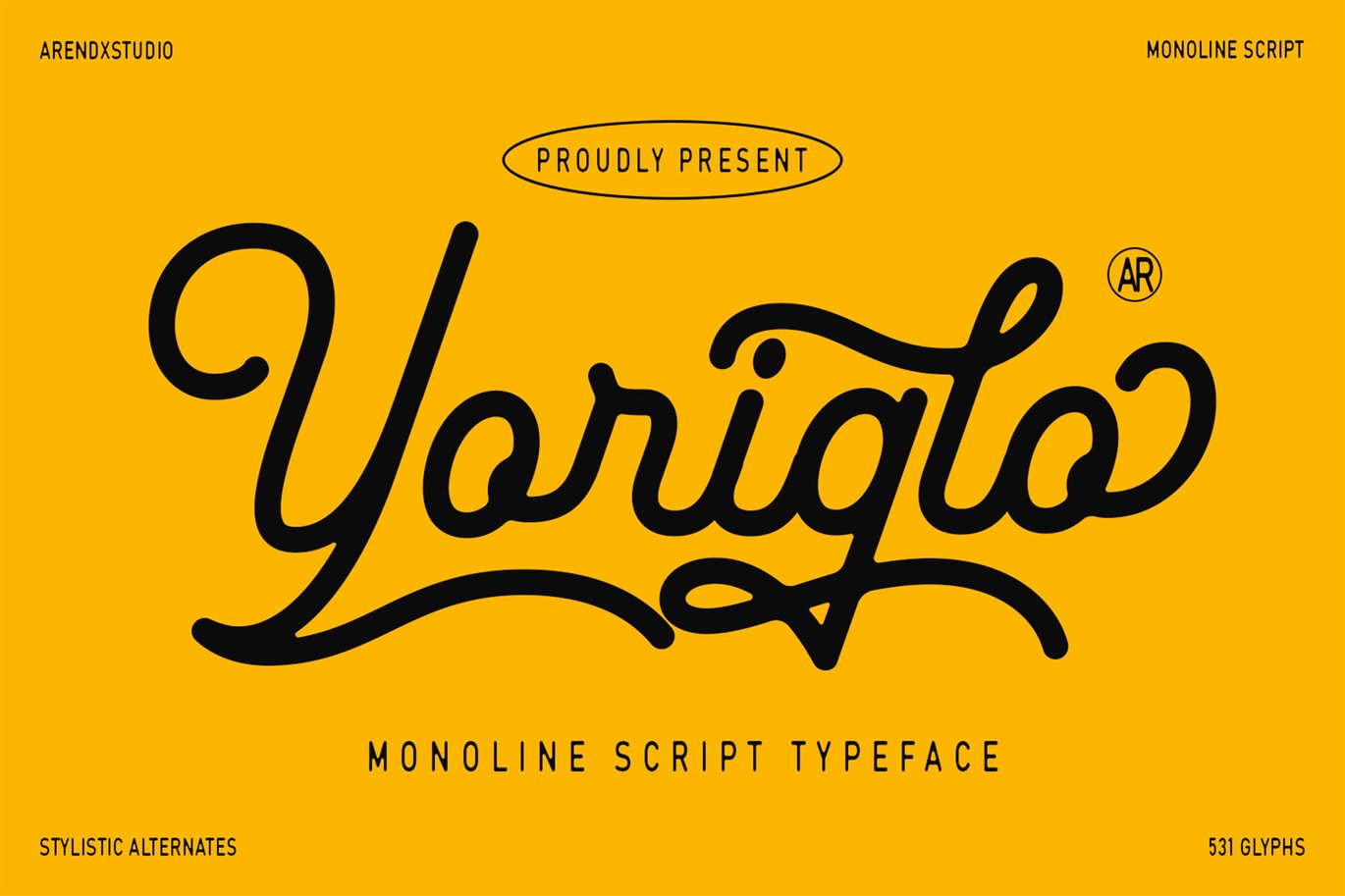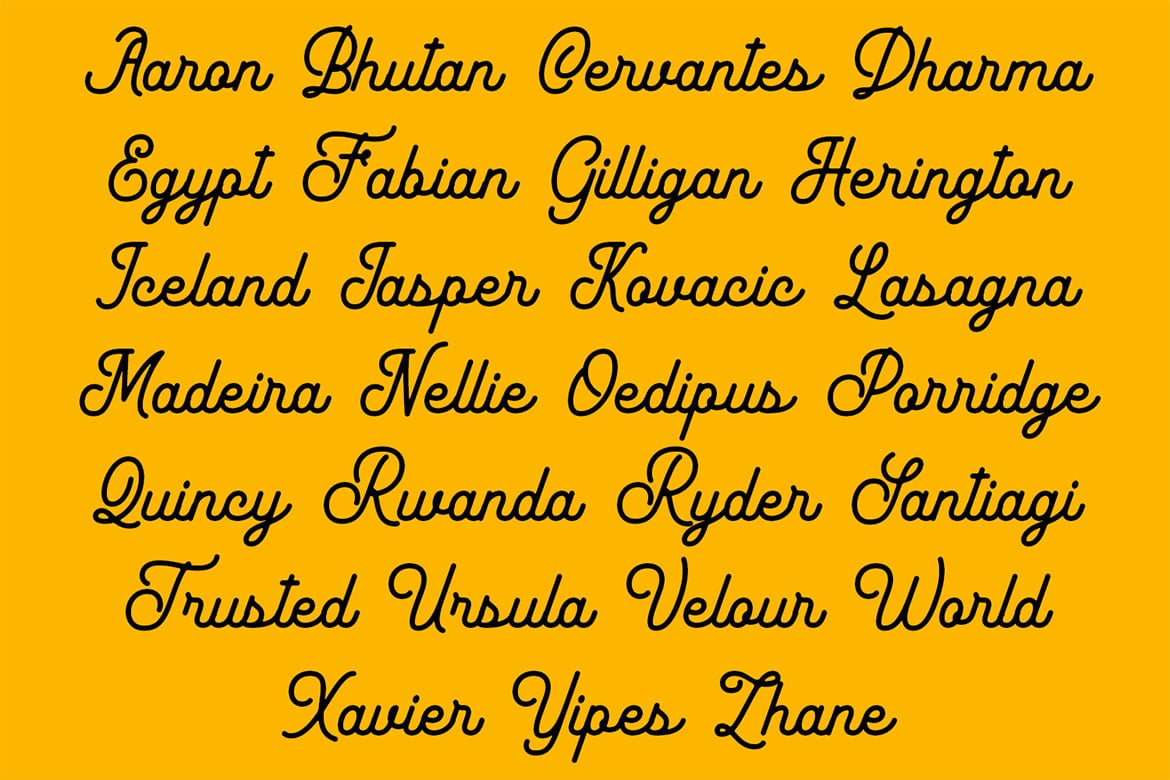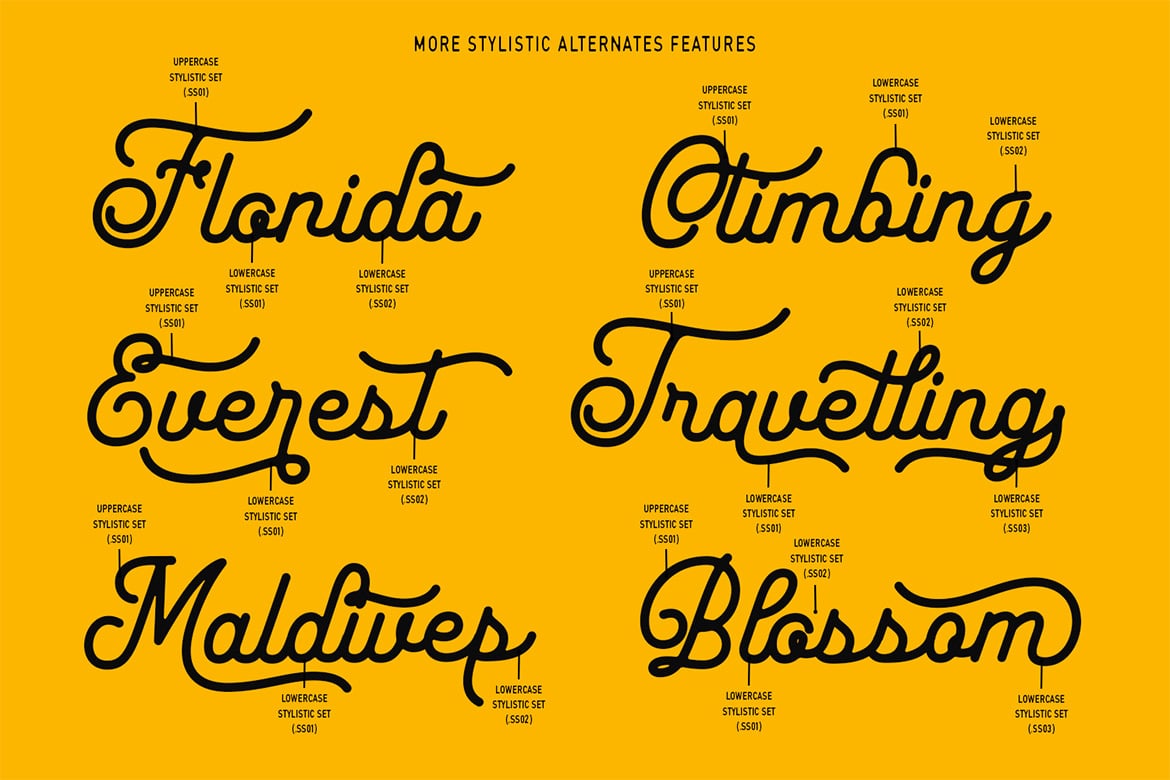
Yoriglo – Monoline Script Font
Yoriglo – Monoline Script Font is a versatile typeface ideal for various projects, including N/A, logos, branding, posters, blog headers, advertisements. The free version includes a full set of uppercase and lowercase letters, available in TTF, OTF, WOFF, WOFF2 format.
Yoriglo – Monoline Script Font